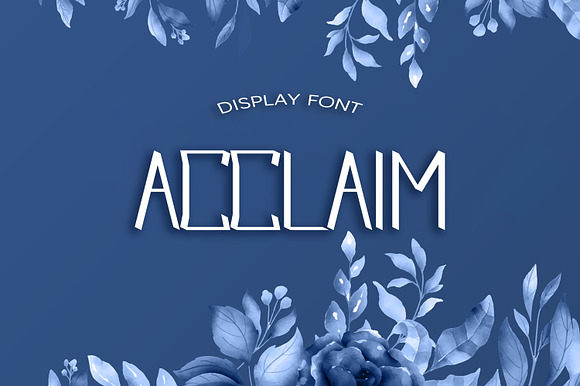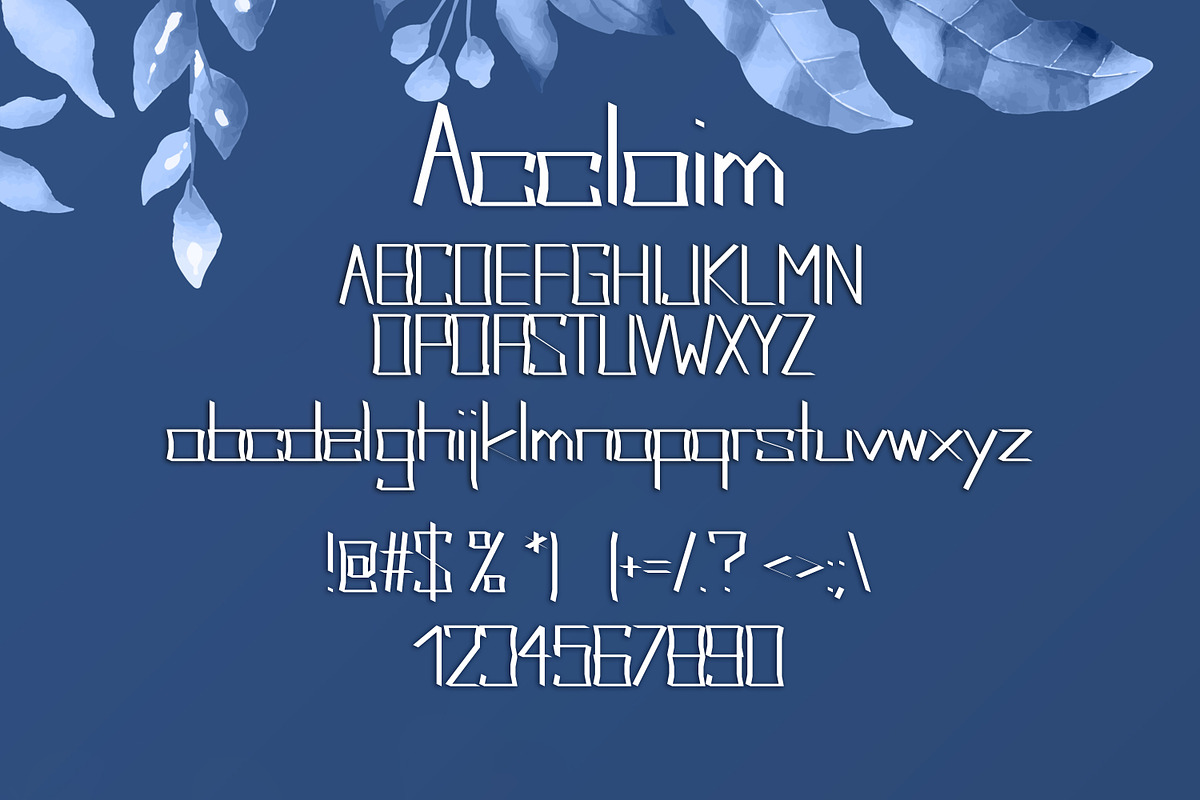
Acclaim Summer Font
Unique handmade calligraphic Summer Font is a modern display font with alternative flourish lowercase and uppercase characters. It helps you realize your dreams and creations.
- Unique handmade calligraphic Summer Font is a modern display font with alternative flourish lowercase and uppercase characters.
Why Acclaim Summer Font is worth a look
Acclaim Summer Font by DmDesignsStoreArt fits naturally into Branding, posters, packaging, typography.